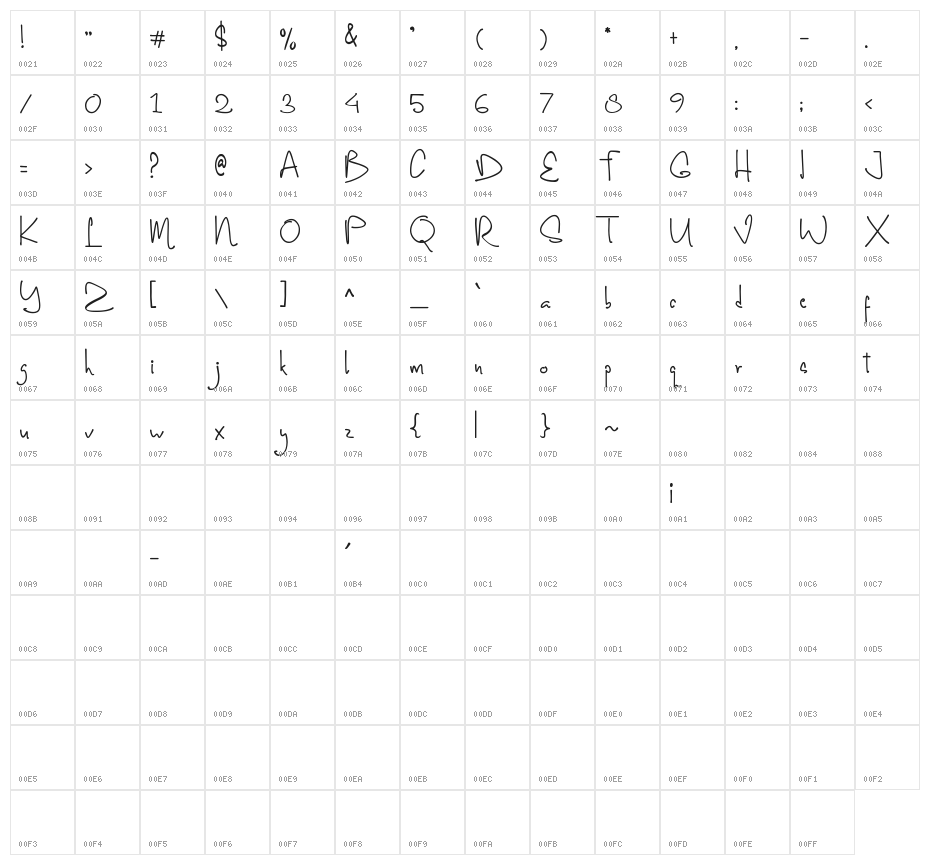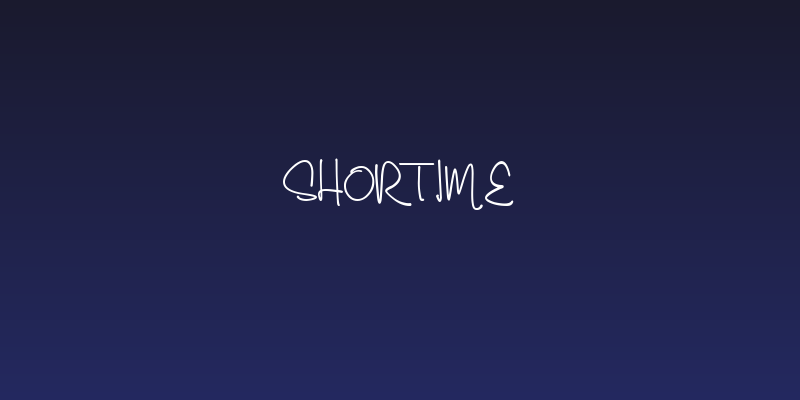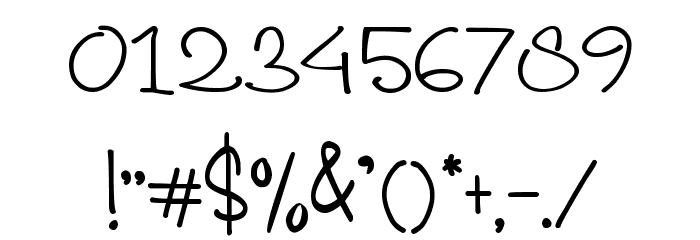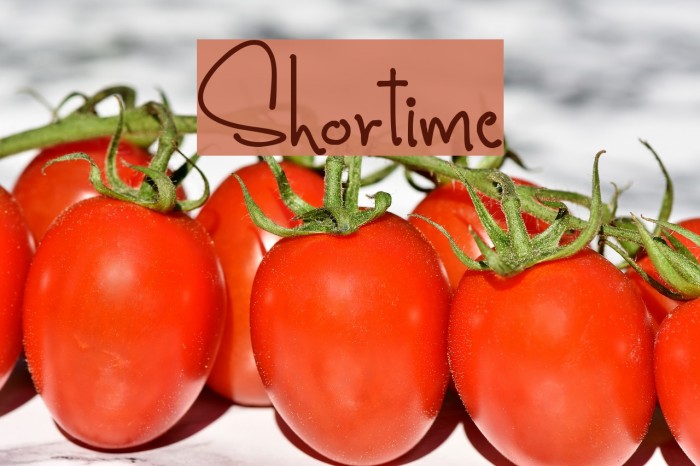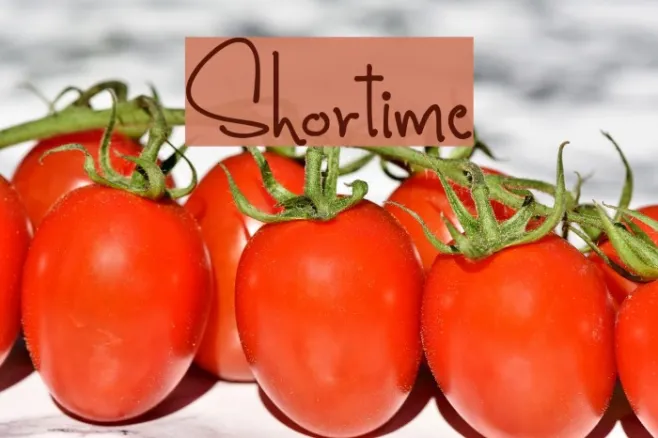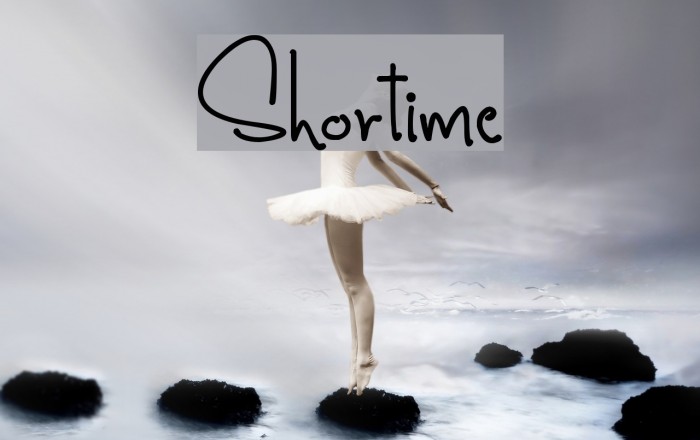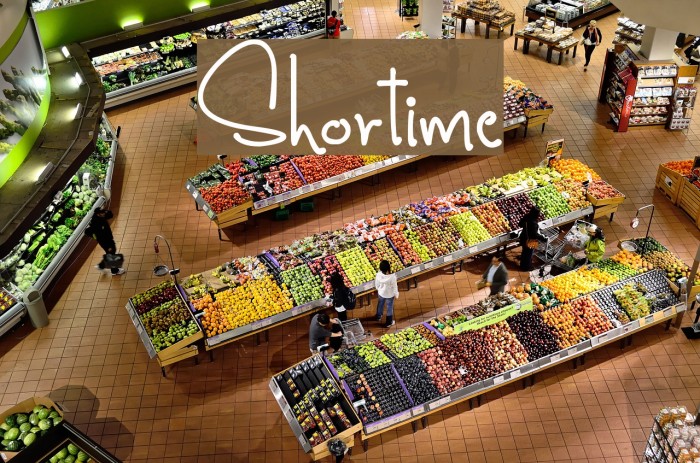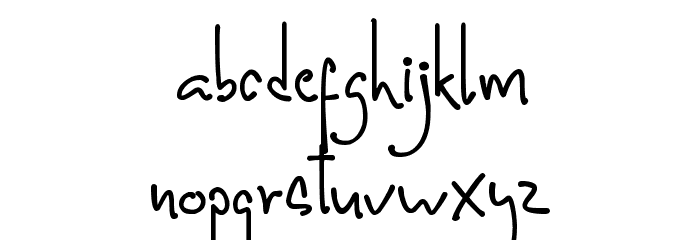
Shortime Font
Shortime Description
This font features a playful and whimsical handwritten style, characterized by its fluid and flowing letterforms. The uppercase letters are tall and slightly irregular, giving a casual and informal appearance. The lowercase letters maintain a consistent style, with some letters having unique loops and curves that add to the font's charm. The numerals are clear and easy to read, matching the overall playful aesthetic. Special characters are included, maintaining the same handwritten feel. This font is ideal for projects that require a personal touch or a creative flair.